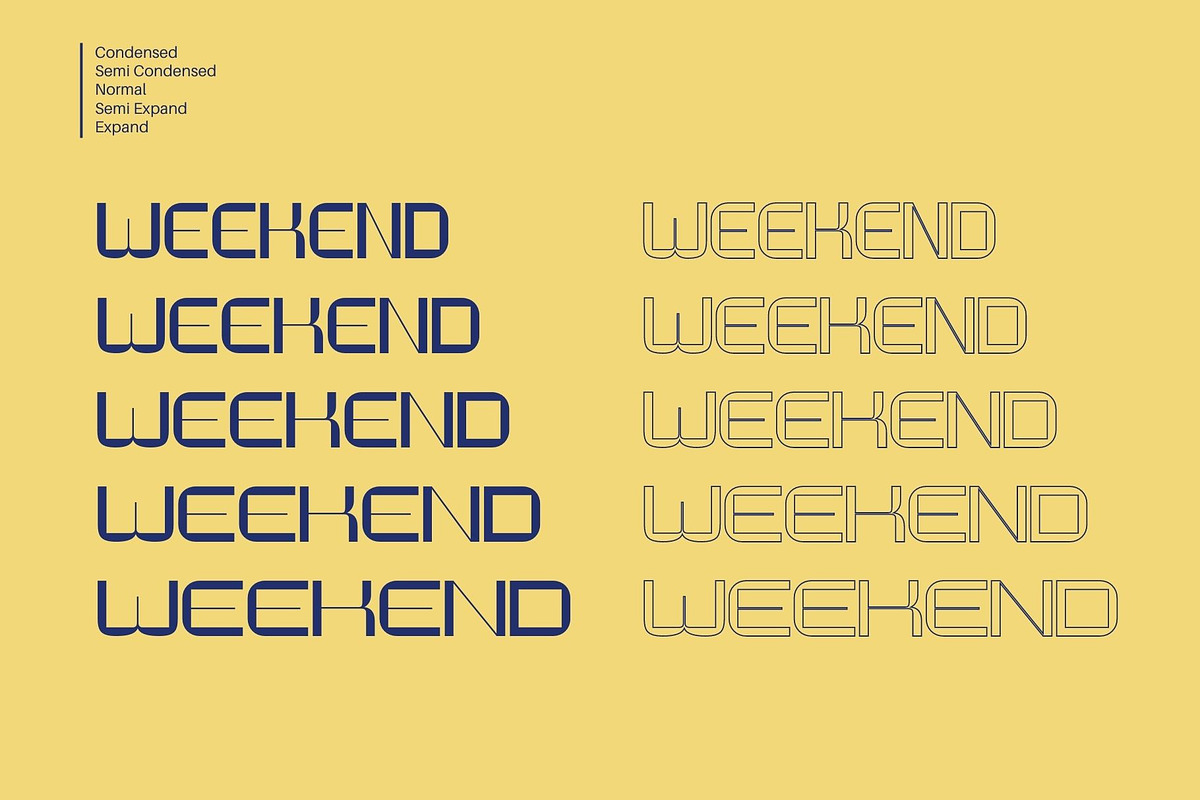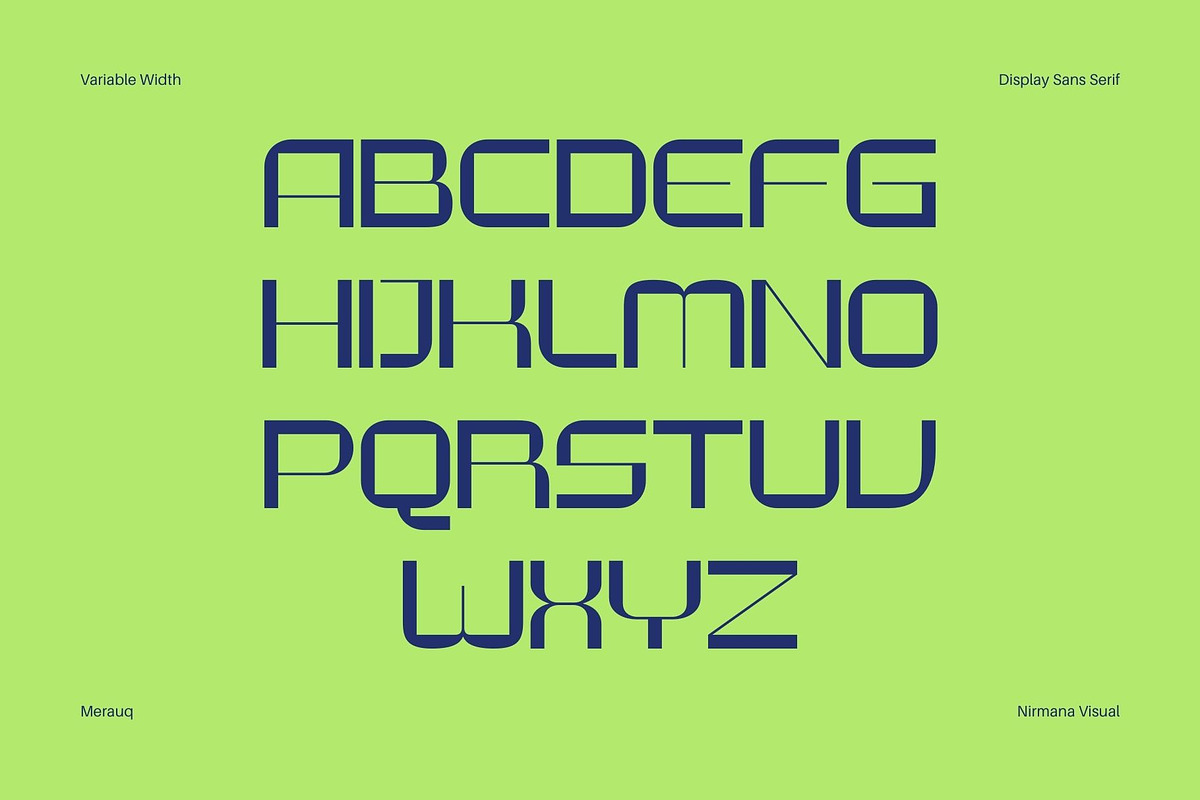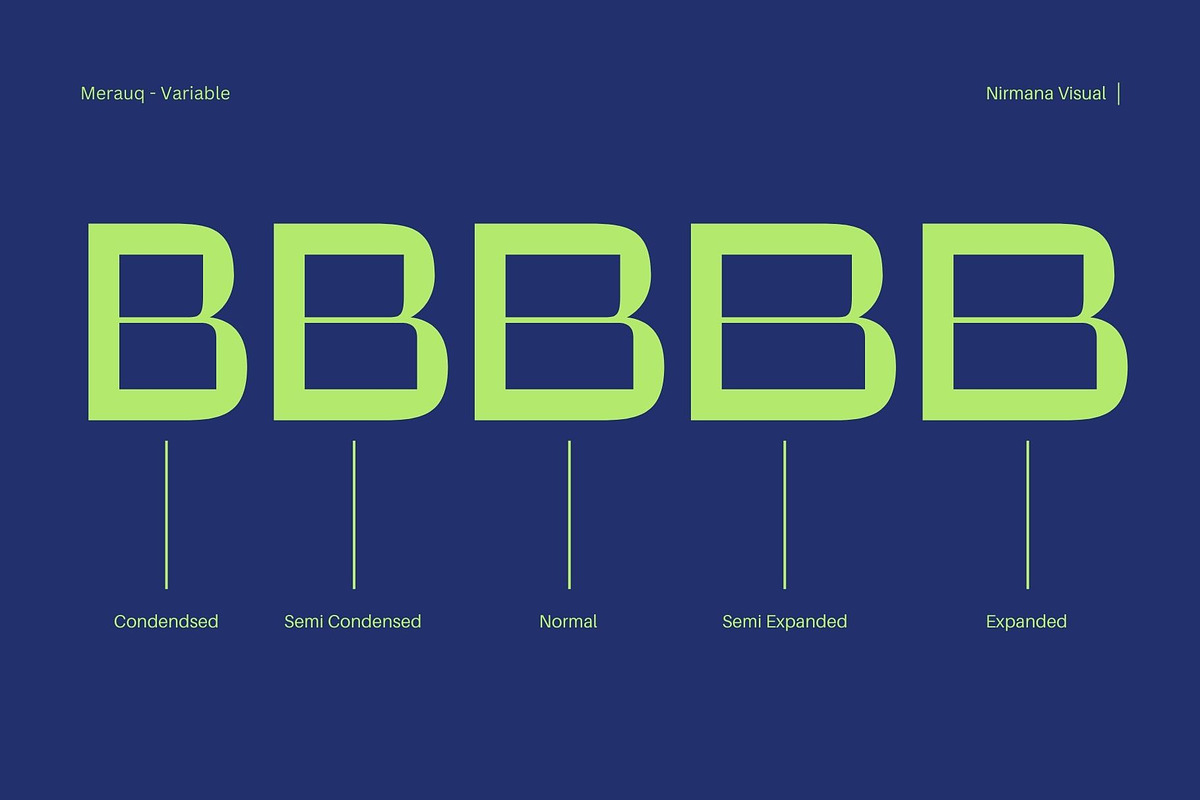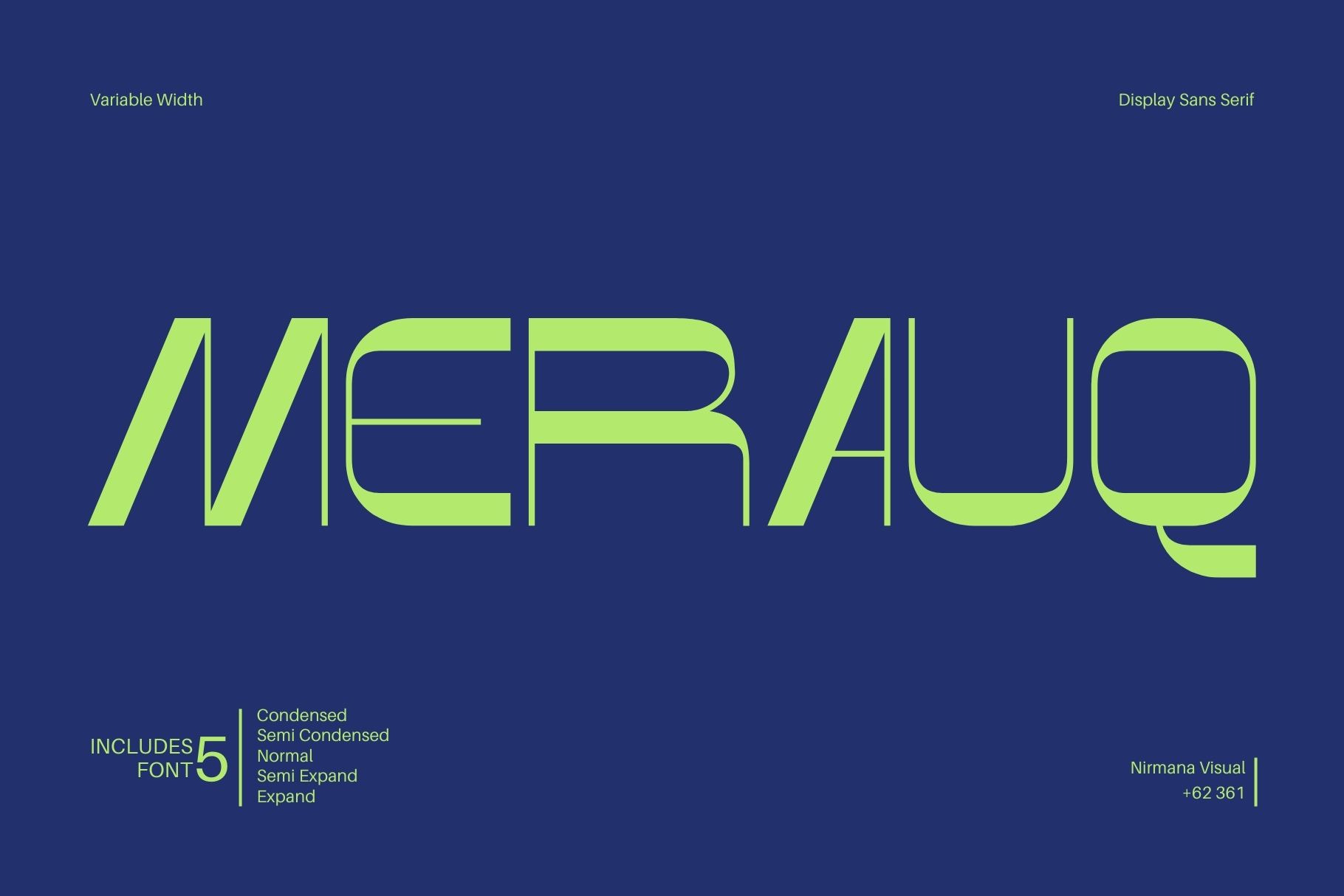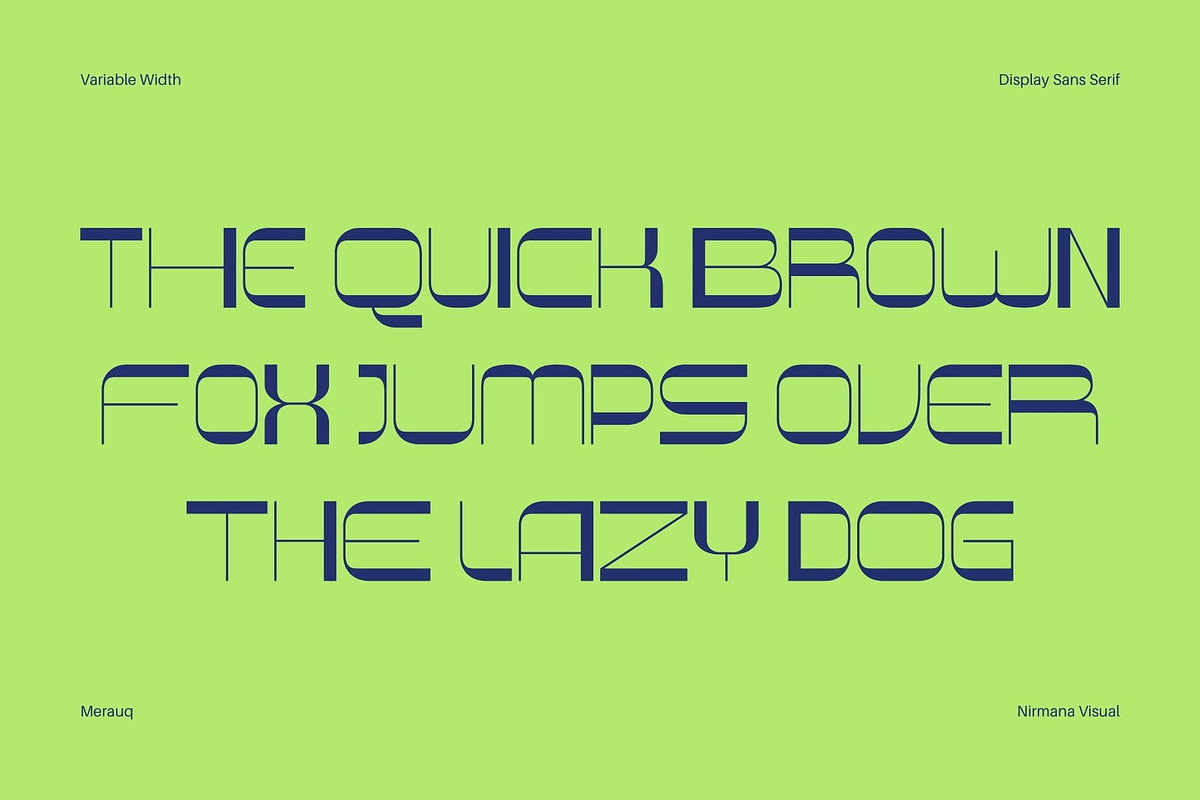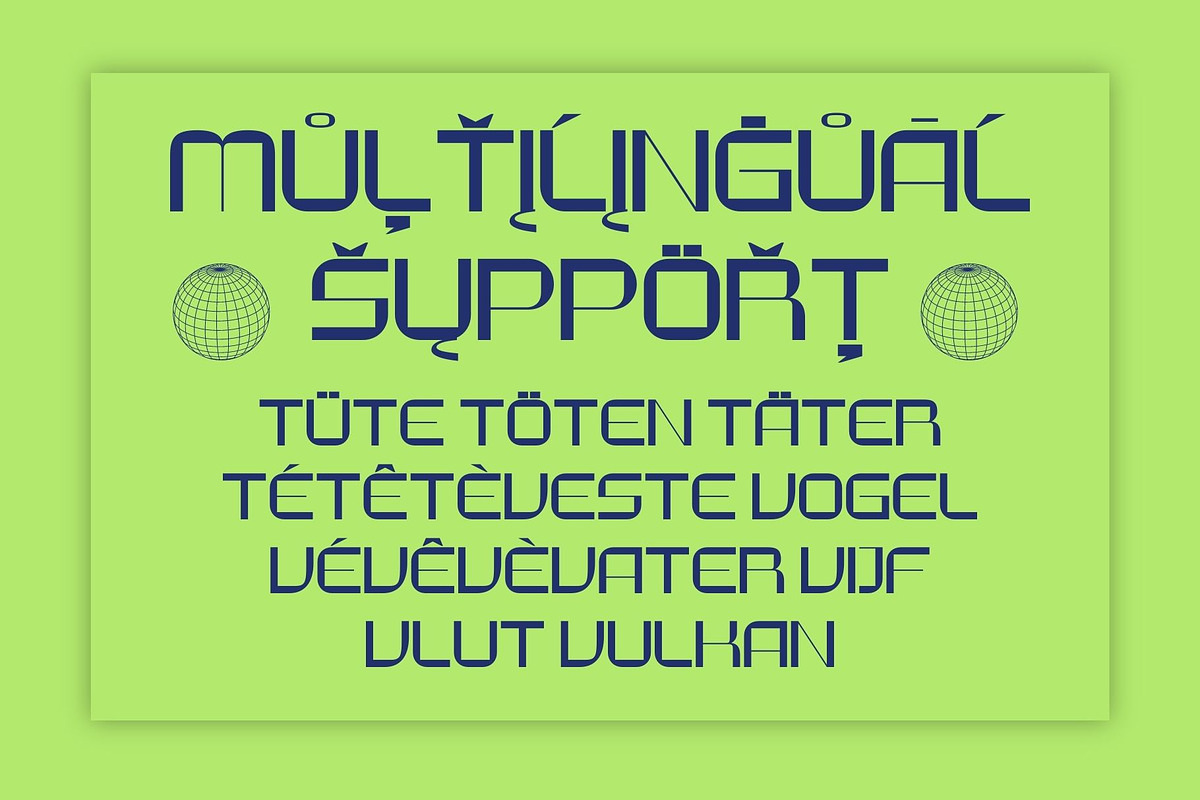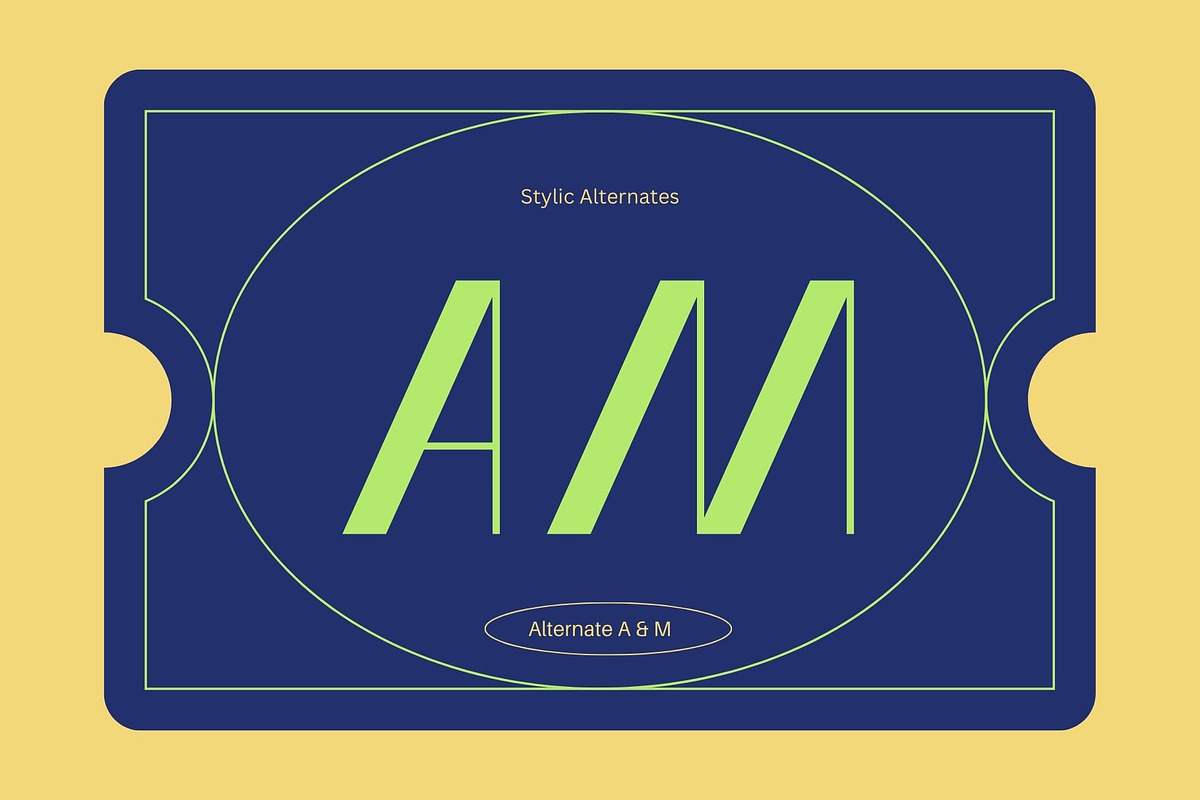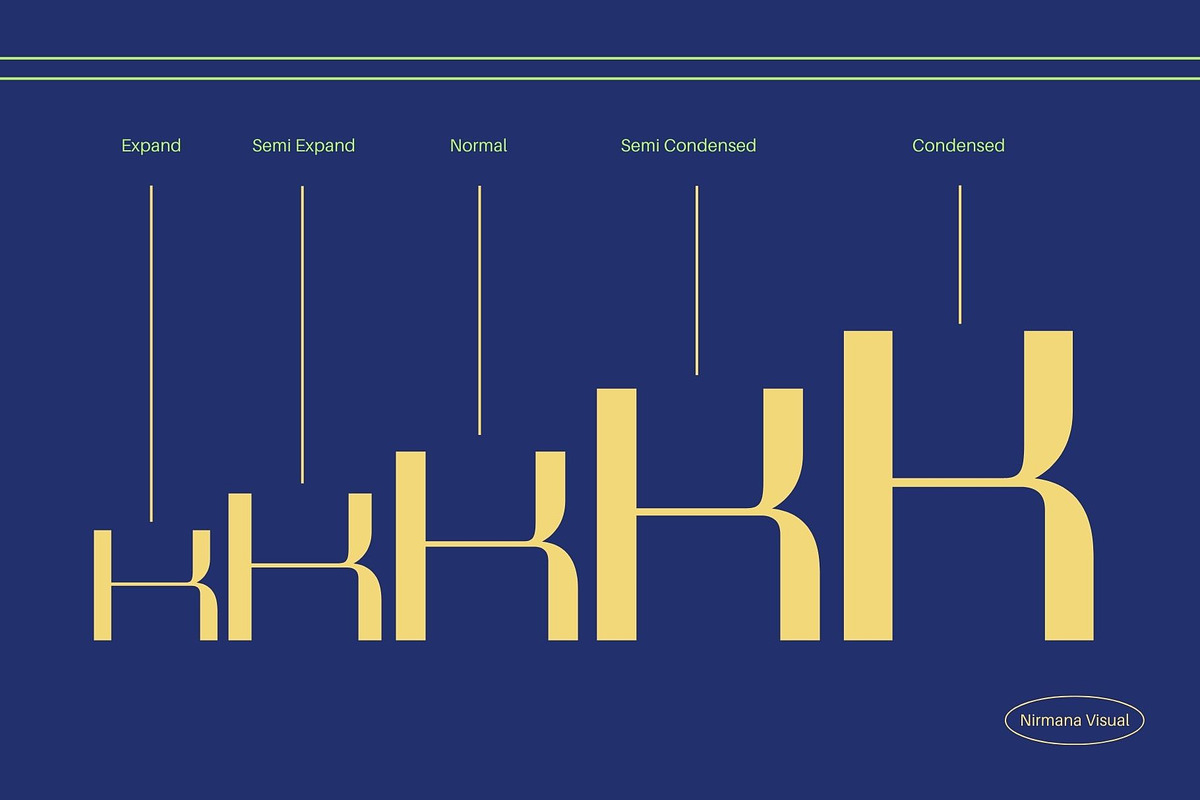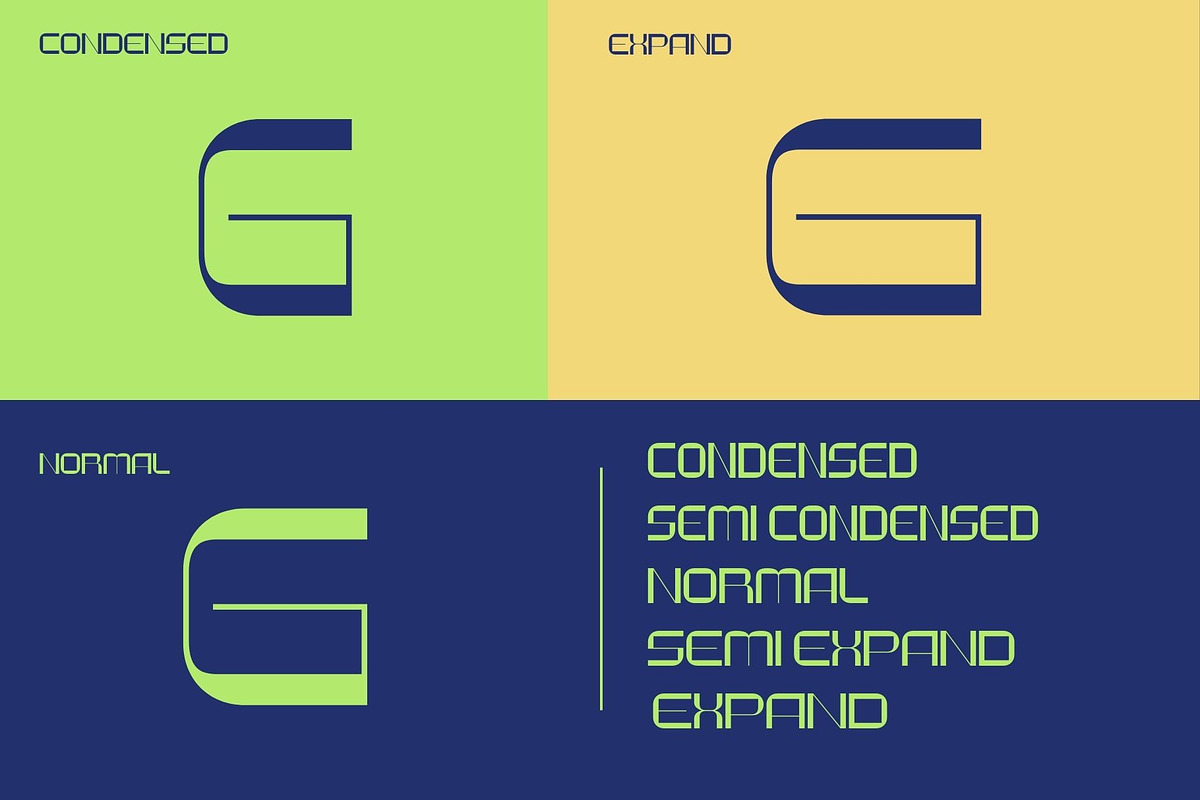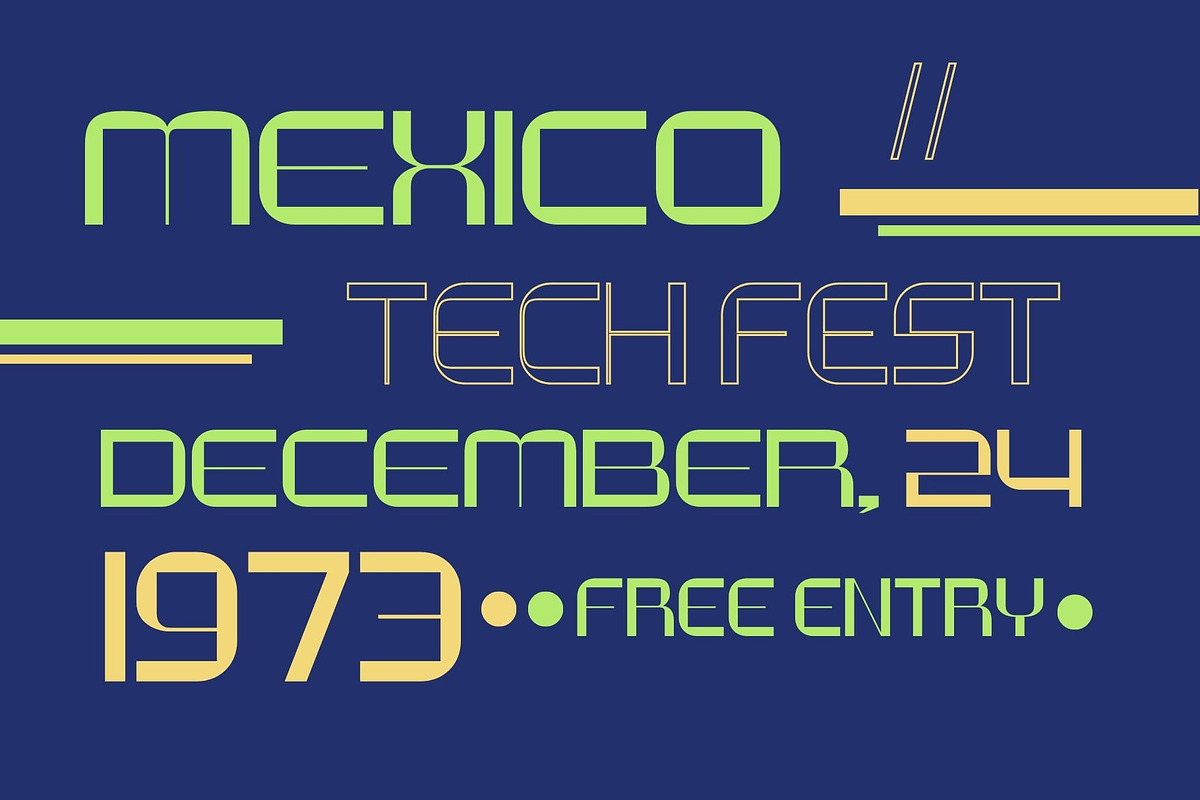
Merauq - Display Font
Merauq Display Typeface.
Merauq with 5 Widths offers beautiful typographic harmony for a diversity of design projects, including logos & branding, social media posts, advertisements & product designs.